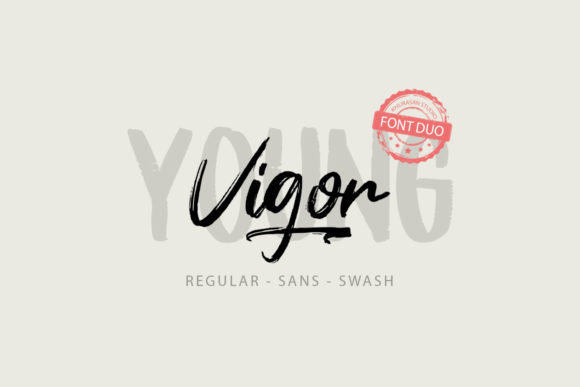
Welcome to the world of Young Vigor Duo, the extraordinary font duo that will ignite your creativity and leave a captivating impression on your audience.
Embark on an adventure with the enchanting script font, a masterpiece of fluidity and artistry. Each stroke dances across the page with effortless grace, exuding a touch of elegance and charm. Its delicate curves and whimsical flourishes will gracefully elevate your designs, infusing them with a touch of timeless beauty.
Immerse yourself in the complementary sans serif font, a beacon of strength and modernity. Its clean lines and crisp edges exude a sense of confidence and sophistication, providing the perfect balance to the ethereal script. Together, they form an unstoppable force, empowering you to craft designs that resonate with your audience's hearts.
Crafted with the utmost care and precision by the skilled hands of Khurasan, Young Vigor Duo transcends the boundaries of ordinary fonts. It is a testament to the power of meticulous design, where every detail has been carefully considered to evoke emotions and captivate the imagination.
Whether you're crafting enchanting invitations, captivating social media posts, or creating unforgettable branding materials, Young Vigor Duo will become your trusted companion. Its versatility knows no bounds, allowing you to explore a limitless spectrum of design possibilities.
Indulge in a symphony of creativity with Young Vigor Duo. It's the font duo that will ignite your passion, fuel your imagination, and leave an unforgettable impression on the world.
Embrace the brilliance of Young Vigor Duo today and embark on a journey of exceptional design. Let your creativity soar, and let your designs speak volumes with this extraordinary font duo.